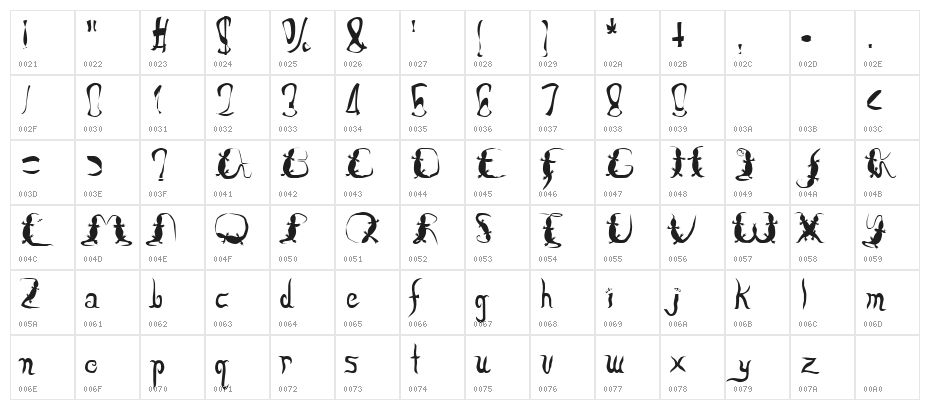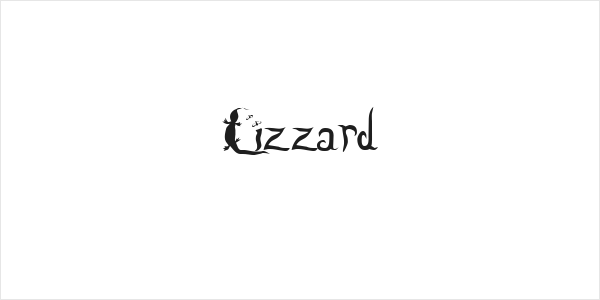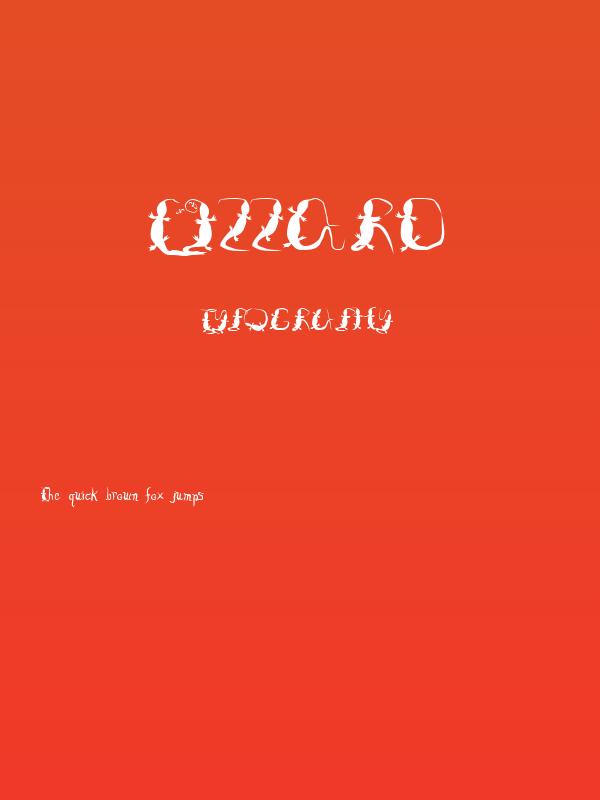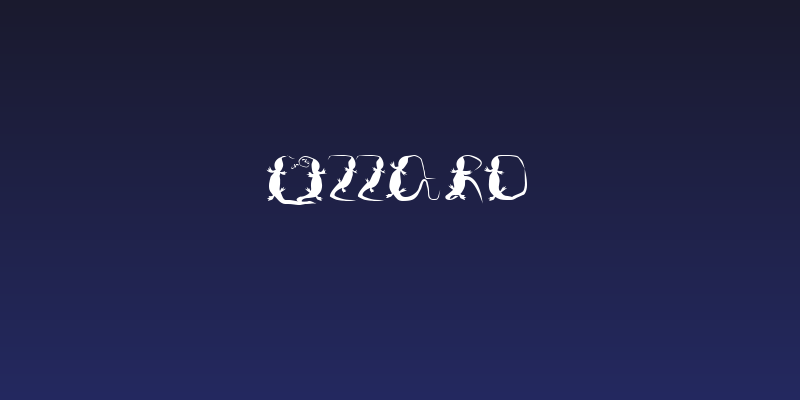
Lizzard Font
Lizzard Description
This font features a unique and whimsical design where each character is intertwined with lizard-like shapes, creating a playful and decorative appearance. The uppercase letters are bold and intricate, with tails and limbs extending from the main strokes, adding a sense of movement and liveliness. The lowercase letters maintain a similar style, though slightly more subdued, ensuring readability while still retaining the decorative elements. Numbers and special characters follow the same theme, making the entire set cohesive. The font's artistic nature makes it stand out, ideal for projects that require a touch of creativity and flair.
Proposed ProjectsPerfect for children's book covers, fantasy-themed posters, or any project needing a whimsical touch.